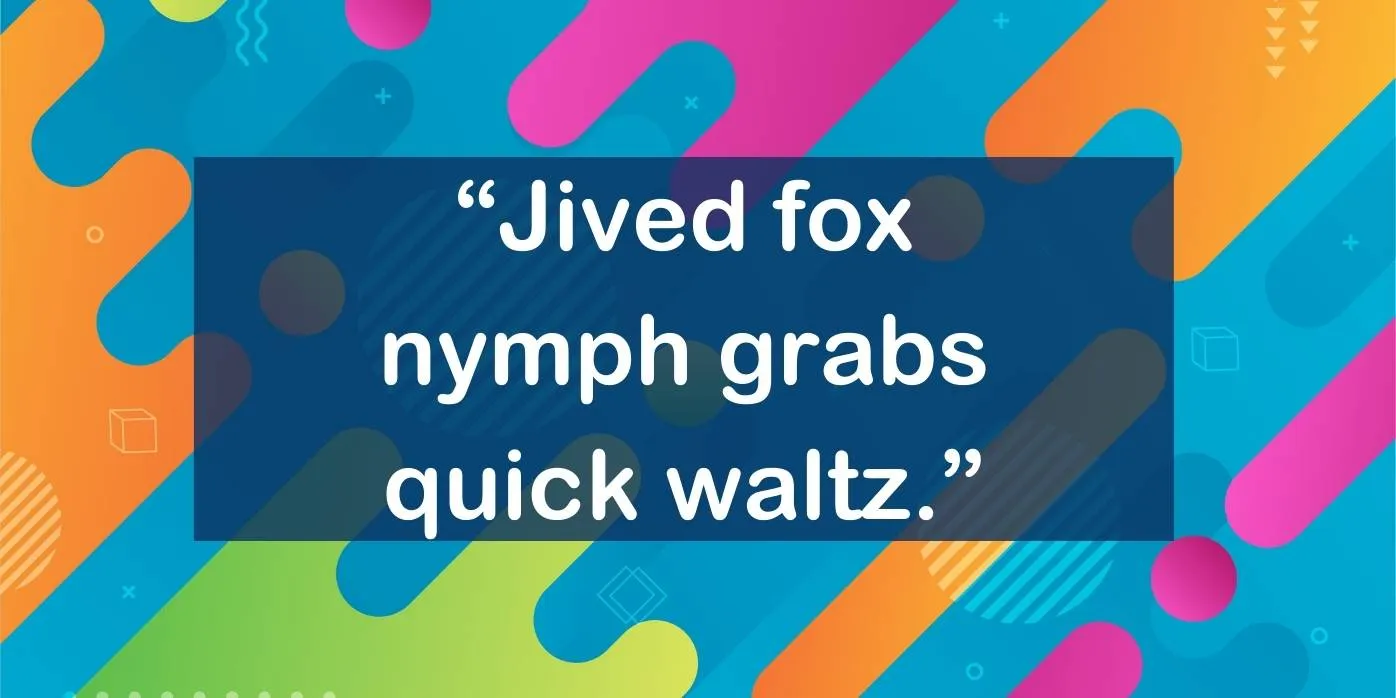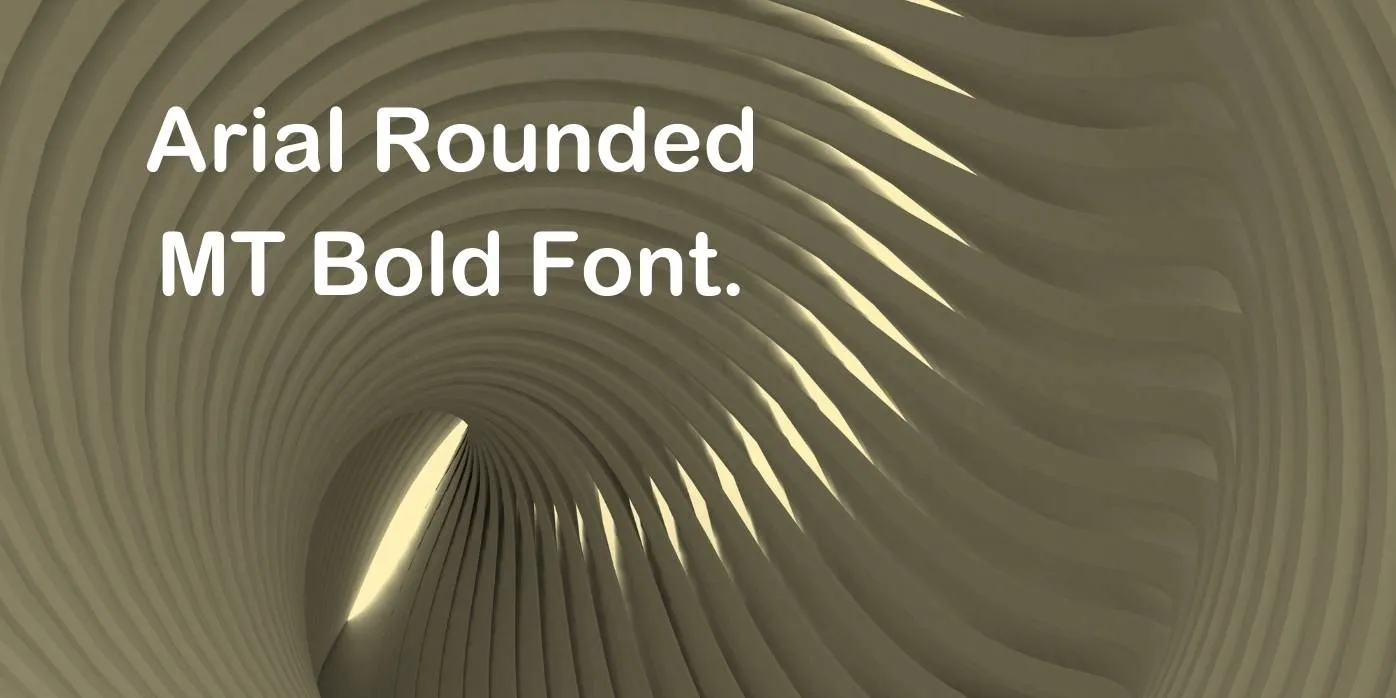
Arial Rounded MT bold Font
Here, we are consulting about the most popular and stylish font family that is known by the name Arial Rounded MT Bold Font. This attractive font family belongs to the Sans-Serif Typeface. This marvelous typeface was manufactured by the brilliant and elegant designer Robin Nicholas. Firstly this classic font was released in the year 1982.
This awesome font family was released by the very famous Monotype Typography Ltd foundry. This decent typeface comes in 243 unique Glyphs and also available 260 special characters. These characters make perfect your designs look. Another Sans-Serif font that works in a similar manner is arial black font.
This font is best suitable for the CSS family. You can also put this typeface for other software like Canva, MS Word, and Adobe. In order to enjoy its additional features, this font provides the facility of an online tool generator by which you create various text and graphics designs. Different companies wish to use this cozy font in all of their functions according to their interest.
The main reason for its uniqueness is its Clean Textures. You can use it for many social media posts. You can manufacture logos of different institutions, movies poster, banners, and many more. However, professional developers make other designs like invoices, book covers, Art designs, and Menus.
YouTubers use this font for their thumbnails. This tremendous makes the best and fascinating different heading and titles. While in offices this stylish font is utilized for various types of post descriptions, records, and various reports. Its powerful weight makes it more classic.
Arial narrow font is similar to this fascinating font you can also use with the same features. In the different designing markets,  it is best for cloth printing and T-shirts designs. Frequently, this excellent font is suitable for wall murals. If you are a professional designer you can also use it for special signatures.